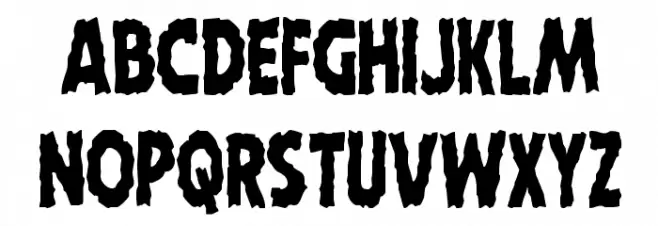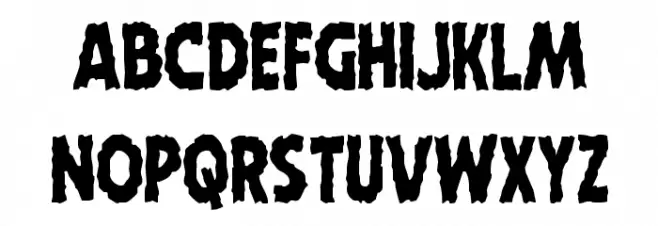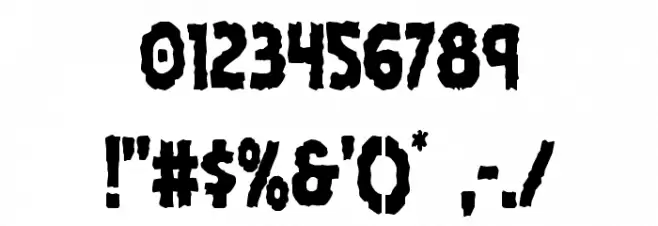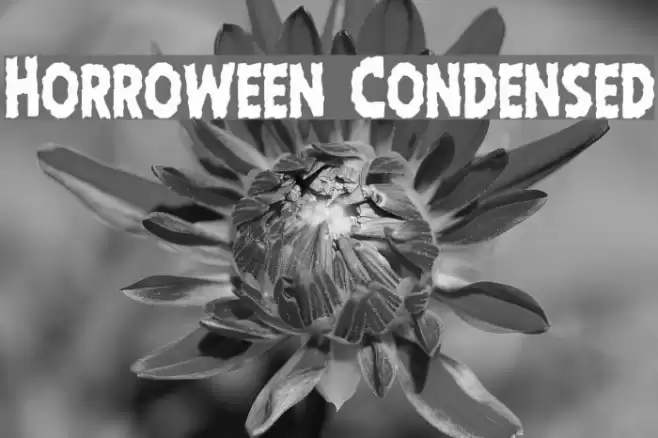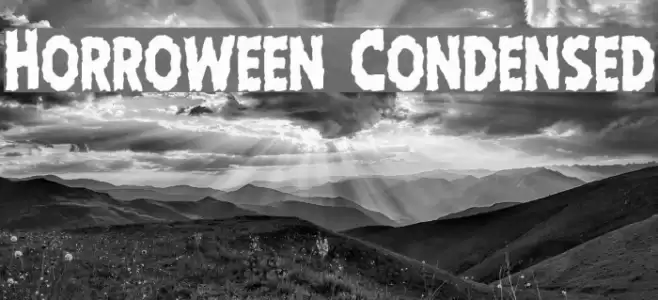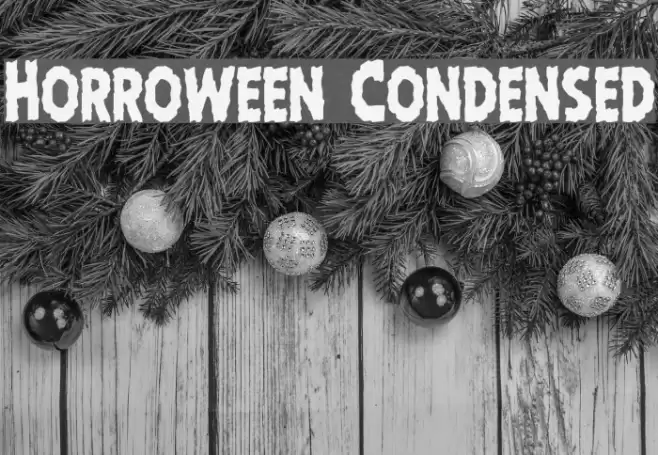
Horroween Condensed
This font features a bold, jagged design that evokes a sense of horror and mystery, perfect for Halloween-themed projects. The characters are irregular and rough-edged, giving them a hand-drawn appearance that adds to the eerie aesthetic. The uppercase and lowercase letters maintain a consistent style, with numbers and special characters following the same theme. The condensed nature of the font allows for efficient use of space while maintaining legibility. Its unique style makes it ideal for creating eye-catching headlines and titles that require a spooky or dramatic flair.
A bold, jagged font with a horror-themed, hand-drawn style.
- Proposed Projects: Ideal for Halloween posters, horror movie titles, themed party invitations, and spooky event flyers.
- Width: Condensed
- Overall Style: Decorative